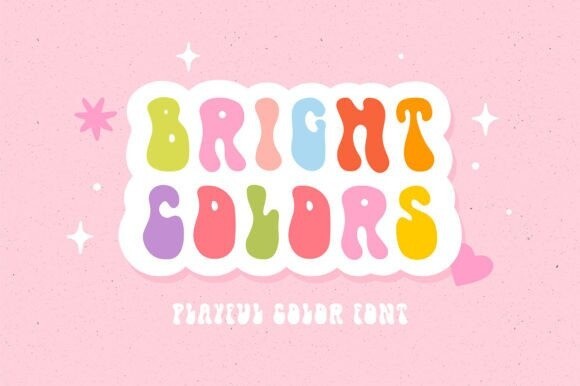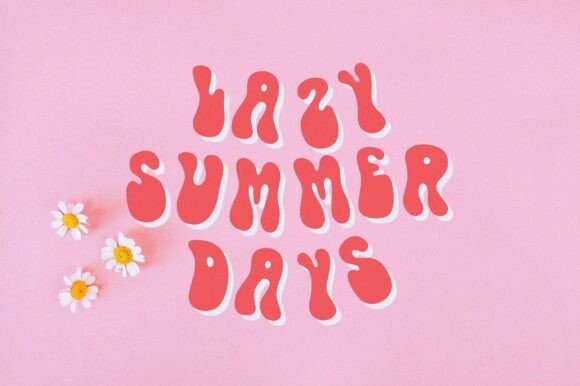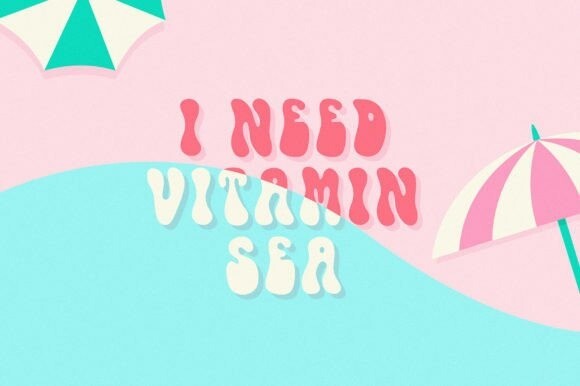
Bright Colors Font
Bright Colors Font is a cute and colorful display font. It embodies playfulness and authenticity and is the perfect choice for any children’s activity or school project. Add this chunky lettered font to your designs and notice how it makes them come alive!